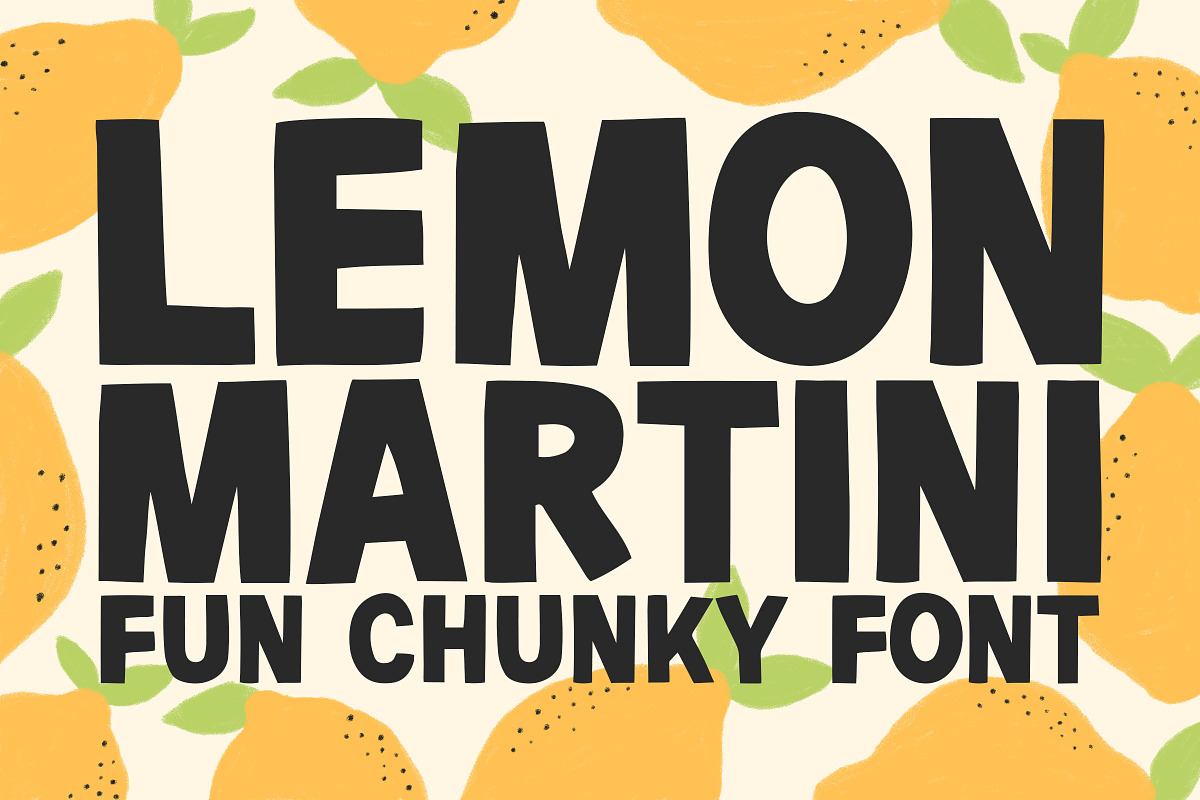
Lemon Martini - Fun Chunky Font Free Download is a bold, playful typeface full of personality and retro charm. With its thick strokes, rounded edges, and funky style, this font is perfect for party invitations, kids’ designs, product packaging, t-shirt graphics, and anything that needs a joyful, standout look.
Its chunky letterforms bring a sense of fun and friendliness to every project while maintaining clear readability. Lemon Martini is especially powerful in headlines, logos, and large-scale typography where its bubbly energy can shine.